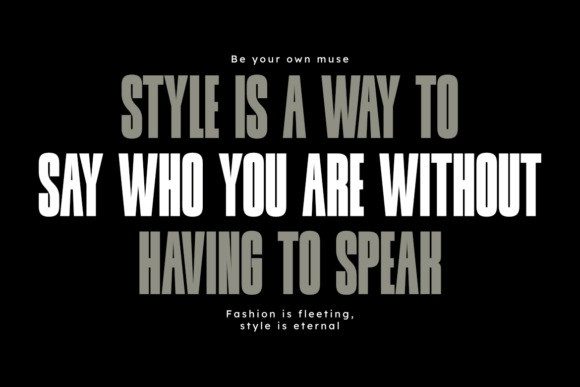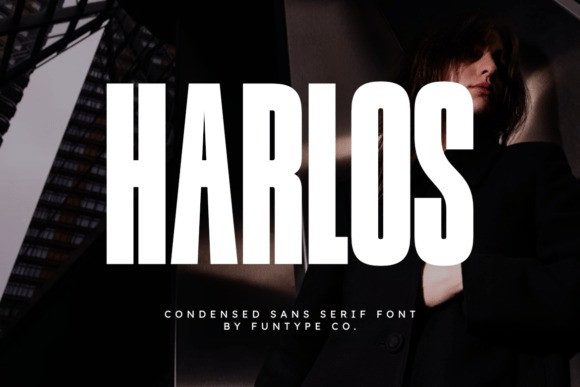
Harlos Font
Harlos Font is a bold and ultra-condensed sans-serif font with a striking and modern aesthetic. With its tall letterforms and tight spacing, this typeface is perfect for fashion branding, editorial design, posters, packaging, headlines, and high-impact visual projects. Harlos delivers a confident and sophisticated look ideal for luxury, lifestyle, and creative industries.